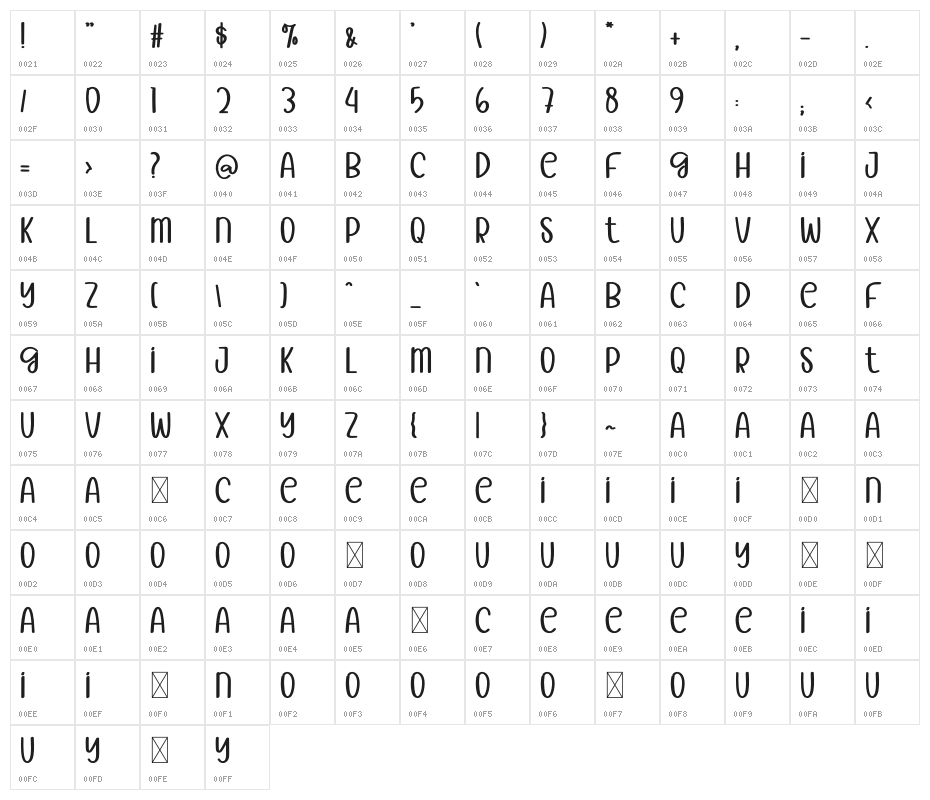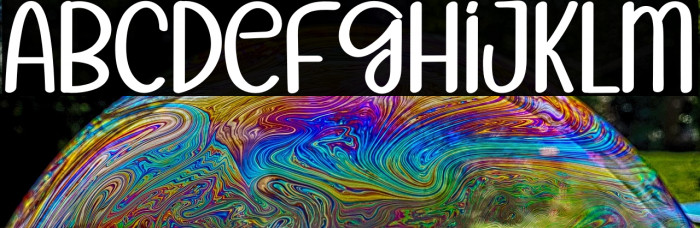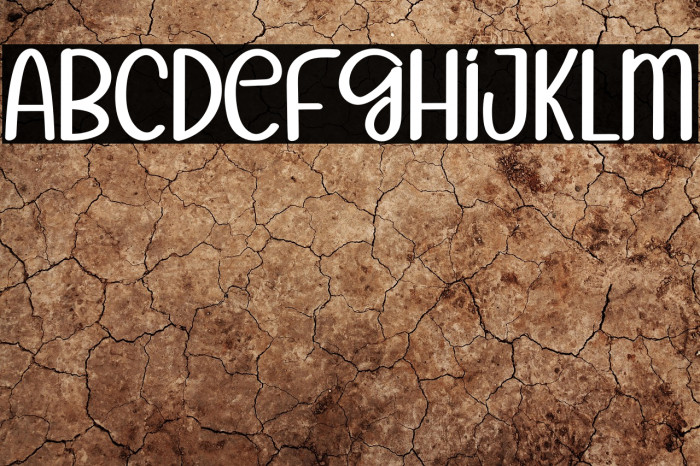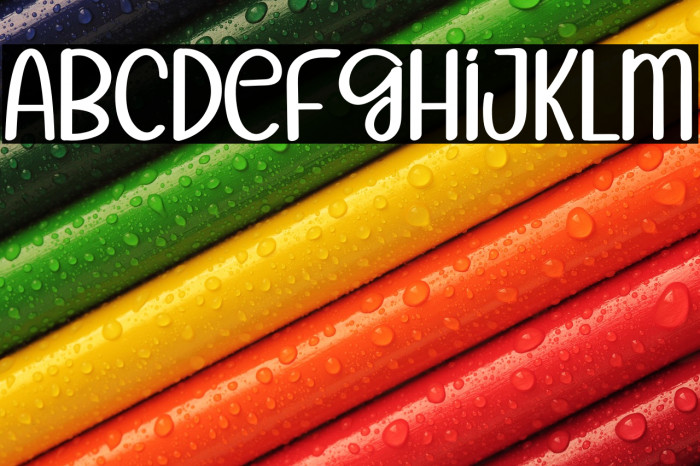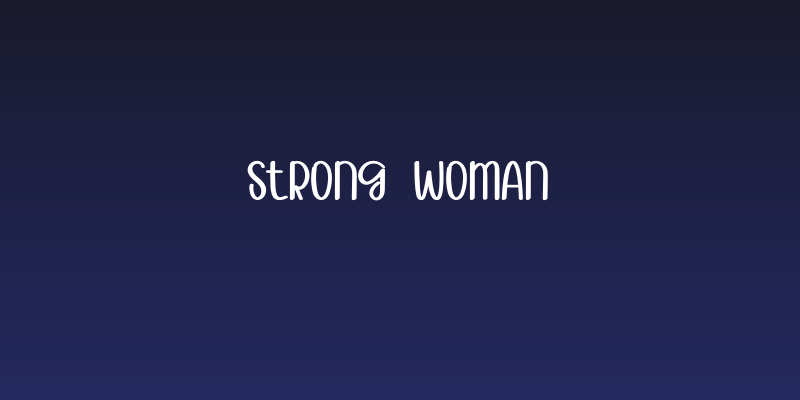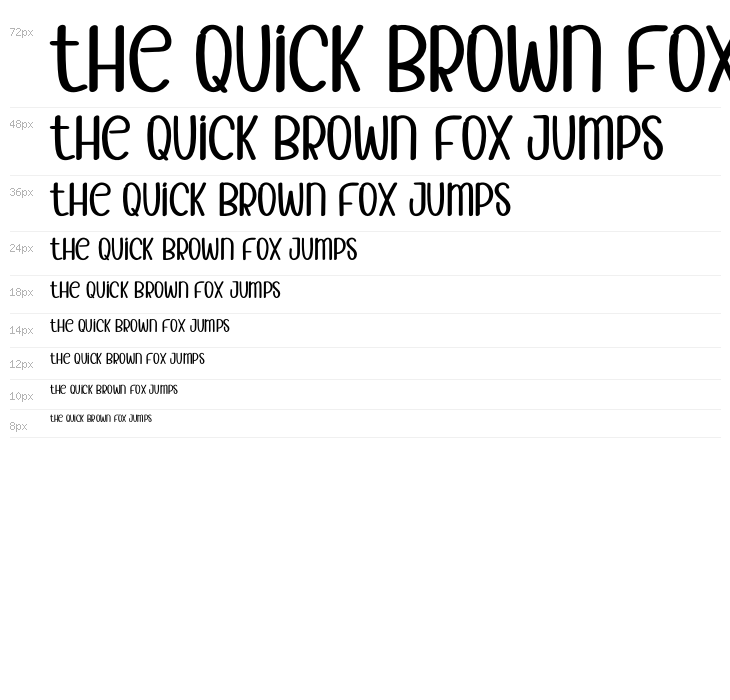
Strong Woman Font
Strong Woman Description
This font presents a playful and bold style with rounded edges and a slightly whimsical appearance. The characters are uniformly thick, providing a consistent and cohesive look across all letters and numbers. The uppercase and lowercase letters maintain a similar height, contributing to a harmonious visual flow. The numerals and special characters are designed to match the overall aesthetic, ensuring a seamless integration into any text. The font's friendly and approachable design makes it suitable for a variety of creative projects.
| Proposed Projects | Ideal for children's books, playful branding, greeting cards, and creative posters. |